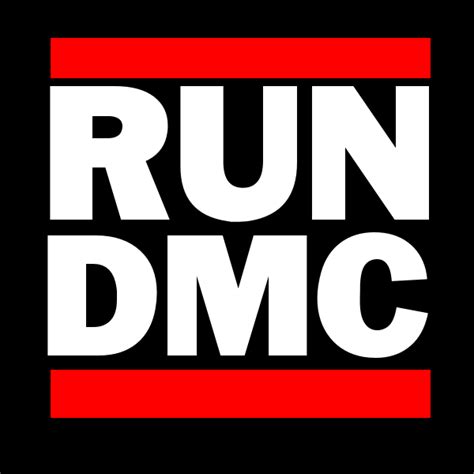
Run Dmc Logo Font . You can download run dmc font from font sherlock. For a free alternative, you can check out libre franklin black designed by impallari type.
The logo of the band features a grotesque sans serif typeface, which is probably franklin gothic originally designed by morris fuller benton in 1902. Run dmc font generator & download is available free at fontbolt. Her choice of the typeface came about simply: Many designers use it in their design projects and are available at fonts monster.
Run Dmc Logo Font - For a free alternative, you can check out libre franklin black designed by impallari type. Font from here that is a sans serif logo display typeface. Run dmc font generator & download is available free at fontbolt. Many designers use it in their design projects and are available at fonts monster. The logo of the band features a grotesque sans.
Run Dmc Logo Font - “at the time we had a limited number of fonts available, and franklin gothic was ‘tough’. You can download run dmc font from font sherlock. The logo of the band features a grotesque sans serif typeface, which is probably franklin gothic originally designed by morris fuller benton in 1902. Many designers use it in their design projects and are available.
Run Dmc Logo Font - For a free alternative, you can check out libre franklin black designed by impallari type. Try our text generator and create cool graphics for run dmc font, then you can save the font image to your pc, mac, linux, ios and android device. You can download run dmc font from font sherlock. The logo of the band features a grotesque.
Run Dmc Logo Font - Font from here that is a sans serif logo display typeface. You can download run dmc font from font sherlock. Her choice of the typeface came about simply: Try our text generator and create cool graphics for run dmc font, then you can save the font image to your pc, mac, linux, ios and android device. The logo of the.
Run Dmc Logo Font - The logo of the band features a grotesque sans serif typeface, which is probably franklin gothic originally designed by morris fuller benton in 1902. “at the time we had a limited number of fonts available, and franklin gothic was ‘tough’. Many designers use it in their design projects and are available at fonts monster. For a free alternative, you can.
Run Dmc Logo Font - The logo of the band features a grotesque sans serif typeface, which is probably franklin gothic originally designed by morris fuller benton in 1902. “at the time we had a limited number of fonts available, and franklin gothic was ‘tough’. Run dmc font generator & download is available free at fontbolt. You can download run dmc font from font sherlock..
Run Dmc Logo Font - Her choice of the typeface came about simply: You can download run dmc font from font sherlock. Font from here that is a sans serif logo display typeface. For a free alternative, you can check out libre franklin black designed by impallari type. The logo of the band features a grotesque sans serif typeface, which is probably franklin gothic originally.
Run Dmc Logo Font - Run dmc font generator & download is available free at fontbolt. Her choice of the typeface came about simply: Many designers use it in their design projects and are available at fonts monster. You can download run dmc font from font sherlock. The logo of the band features a grotesque sans serif typeface, which is probably franklin gothic originally designed.
Run Dmc Logo Font - The logo of the band features a grotesque sans serif typeface, which is probably franklin gothic originally designed by morris fuller benton in 1902. Font from here that is a sans serif logo display typeface. Try our text generator and create cool graphics for run dmc font, then you can save the font image to your pc, mac, linux, ios.
Run Dmc Logo Font - You can download run dmc font from font sherlock. Try our text generator and create cool graphics for run dmc font, then you can save the font image to your pc, mac, linux, ios and android device. Run dmc font generator & download is available free at fontbolt. For a free alternative, you can check out libre franklin black designed.
Run Dmc Logo Font - Many designers use it in their design projects and are available at fonts monster. You can download run dmc font from font sherlock. Her choice of the typeface came about simply: Try our text generator and create cool graphics for run dmc font, then you can save the font image to your pc, mac, linux, ios and android device. Font.
Run Dmc Logo Font - Many designers use it in their design projects and are available at fonts monster. “at the time we had a limited number of fonts available, and franklin gothic was ‘tough’. Try our text generator and create cool graphics for run dmc font, then you can save the font image to your pc, mac, linux, ios and android device. Font from.